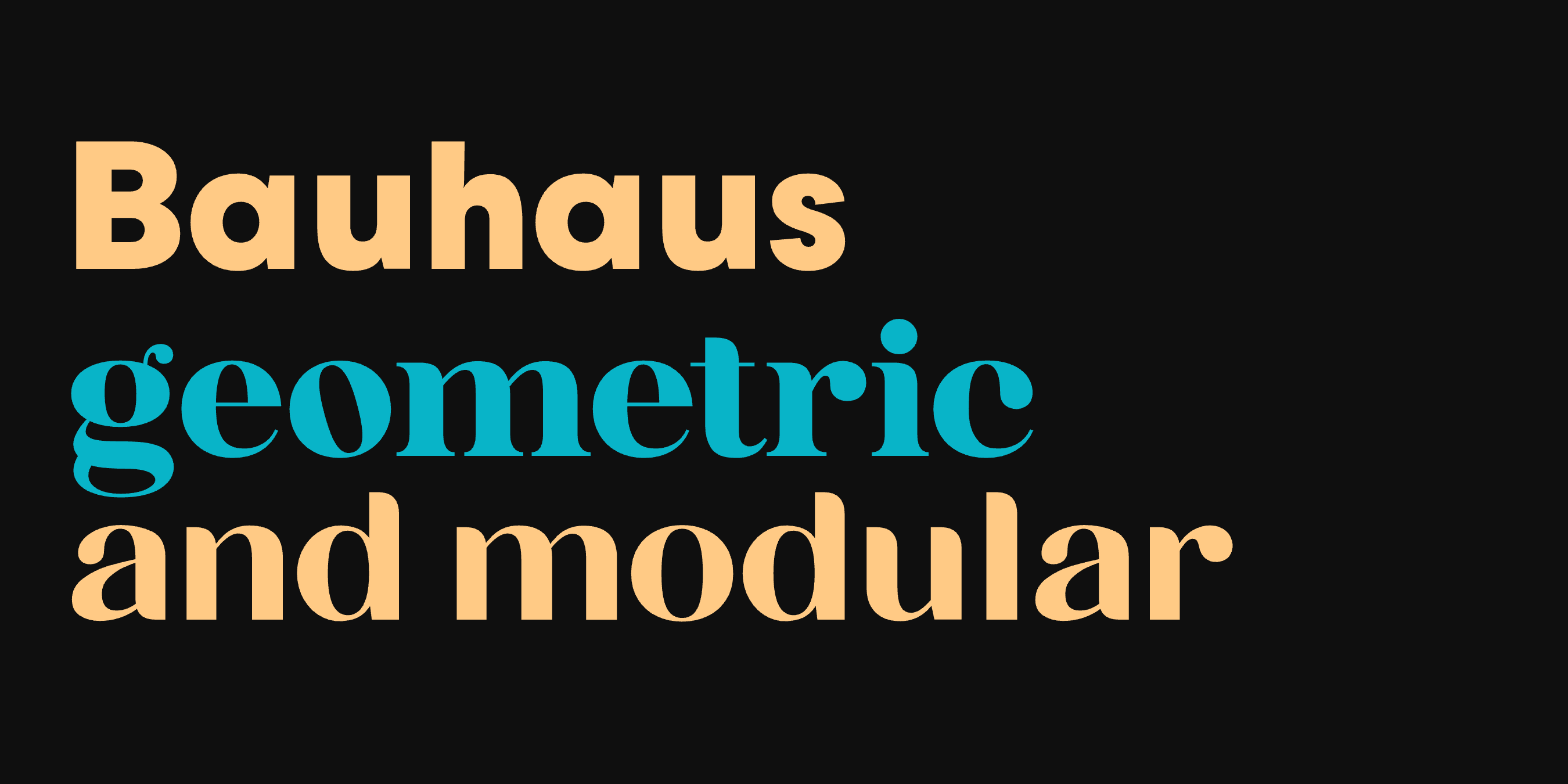
Bauhaus Fonts: What Makes a Font Bauhaus, and 11 to Try
A Bauhaus font is built from simple shapes: circles, arcs and straight lines, with one stroke weight and no decoration. This guide covers where that look comes from, how to spot it, and 11 fonts in that style, each with nine weights and a variable font.
What Makes a Font Bauhaus
The Bauhaus was a design school, founded in 1919 by the architect Walter Gropius. When it moved into its own building in Dessau in 1925, the word BAUHAUS ran down the facade in tall, plain capitals. The same year Herbert Bayer, who taught at the school, drew his universal alphabet: lowercase only, built from circles, arcs and straight lines. The school never released a typeface of its own. Bayer’s alphabet stayed a drawing until 1975, when Ed Benguiat and Victor Caruso turned it into ITC Bauhaus, the font most people think of when they hear the name.
Futura, drawn by Paul Renner in 1927, is based on the same ideas, though Renner never taught at the school. To recognize the style, look for these:
- A round o, close to a perfect circle.
- A single-storey a, often a g as well.
- Strokes of one weight, with little or no contrast.
- Letters made from the same few parts, so they look alike.
11 Bauhaus Fonts
Bauhaus Geo
The closest to Bayer’s alphabet in this list. The o is a circle, the a is single-storey, and the stroke has one weight. Alternate letters make it more geometric, or more readable in text. For architecture, tech and minimal brands.
Scal is the closest to Futura in this list: a round a and o, pointed tips on the A, M, N, V and W, and sharp cuts on the C, G and S. The light weights work for longer text, the heavy weights are compact. For fashion and beauty labels, magazines and restaurants.
Vole is made from circles and straight lines, like the Bauhaus alphabets, with heavier, softer shapes. The counters are round, the a and g are single-storey, and the stroke ends are flat. Five stylistic sets have other forms for a, g, M, N and more. For logos, posters and packaging.
A rounded sans with simple, modular shapes: the M and N are rounded at the top like the o. It is friendly and stays readable at small sizes. Often used for lifestyle brands and consumer products, and a good sans to pair with Bauhaus Soft.
The only serif in this list. A bold, organic serif with soft corners and some contrast between thick and thin strokes. It is our best-selling font. For beauty, lifestyle, packaging and editorial work, and it pairs with any of the sans fonts here.
A rounded font with high contrast between thick and thin strokes. For beauty brands, packaging and fashion magazines.
A narrow sans for startup and tech branding, less geometric than Geo. For product headlines, app screens and pitch decks.
A clean sans with alternate letters, between Geo and Bau: less geometric than Geo, less rounded than Bau.
The most playful sans here, with bold shapes and fun alternate letters. It pairs well with Bauhaus Soft, for kids brands and playful product lines.
A bold block font made from chunky, rounded modular shapes. For kids brands, toy packaging, games and logos.
- Bauhaus Soft + Bauhaus Geo. Soft for headlines, Geo for text.
- Scal + Bauhaus Soft. Scal’s pointed letters next to Soft’s round corners, for fashion and beauty.
- Bauhaus Chez + Bauhaus Slim. Chez for product names, Slim for the details, on packaging.
- Vole + Bauhaus Geo. Vole for the logo and posters, Geo for the text.
Bauhaus Type Today
The Bauhaus idea was to start from what a letter has to do and leave out everything else. A hundred years later, these shapes are still common in logos, signs and apps. For more in this style, see the Bauhaus fonts collection, our fonts like Futura post and our guide to geometric sans-serif fonts.